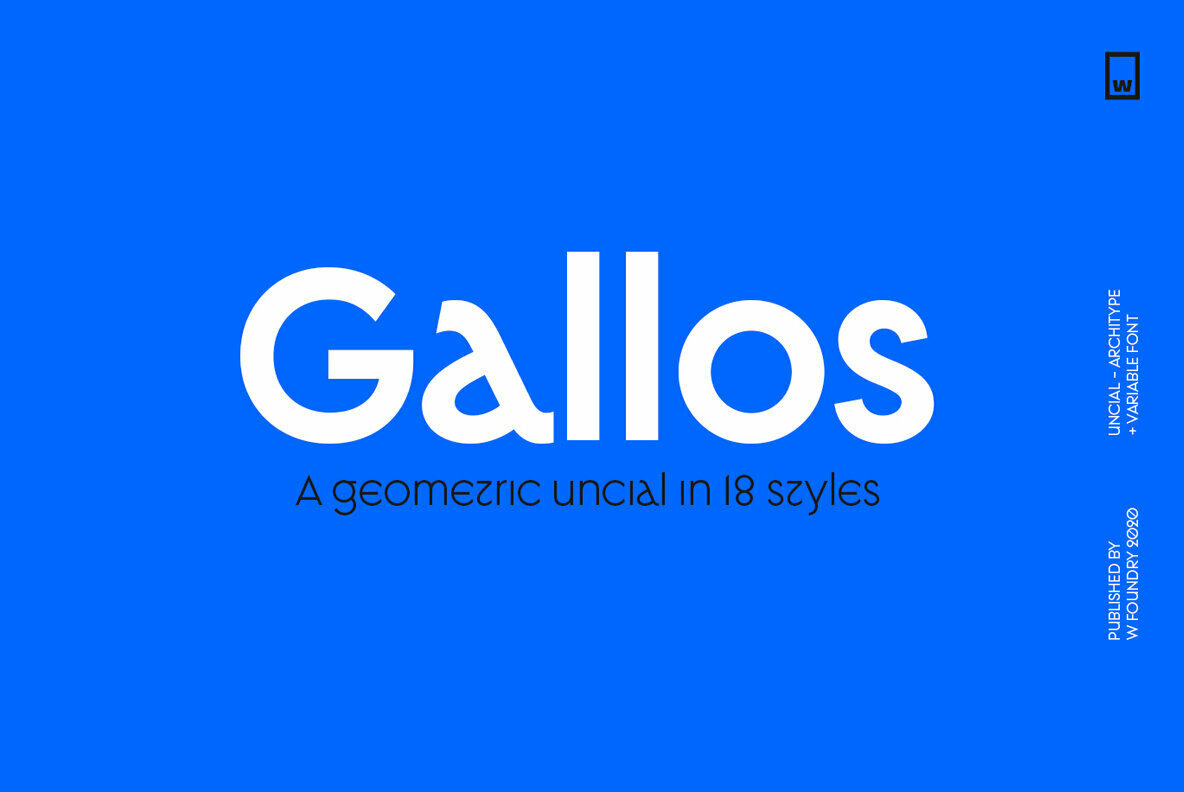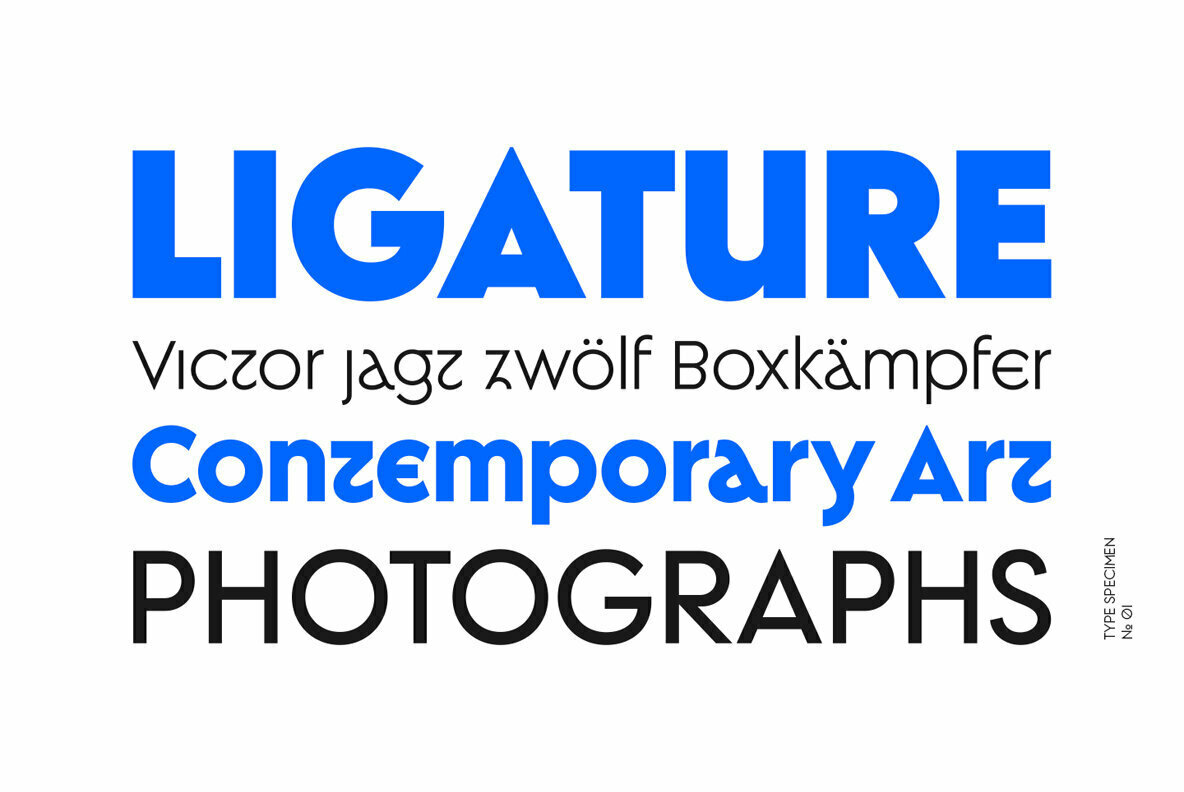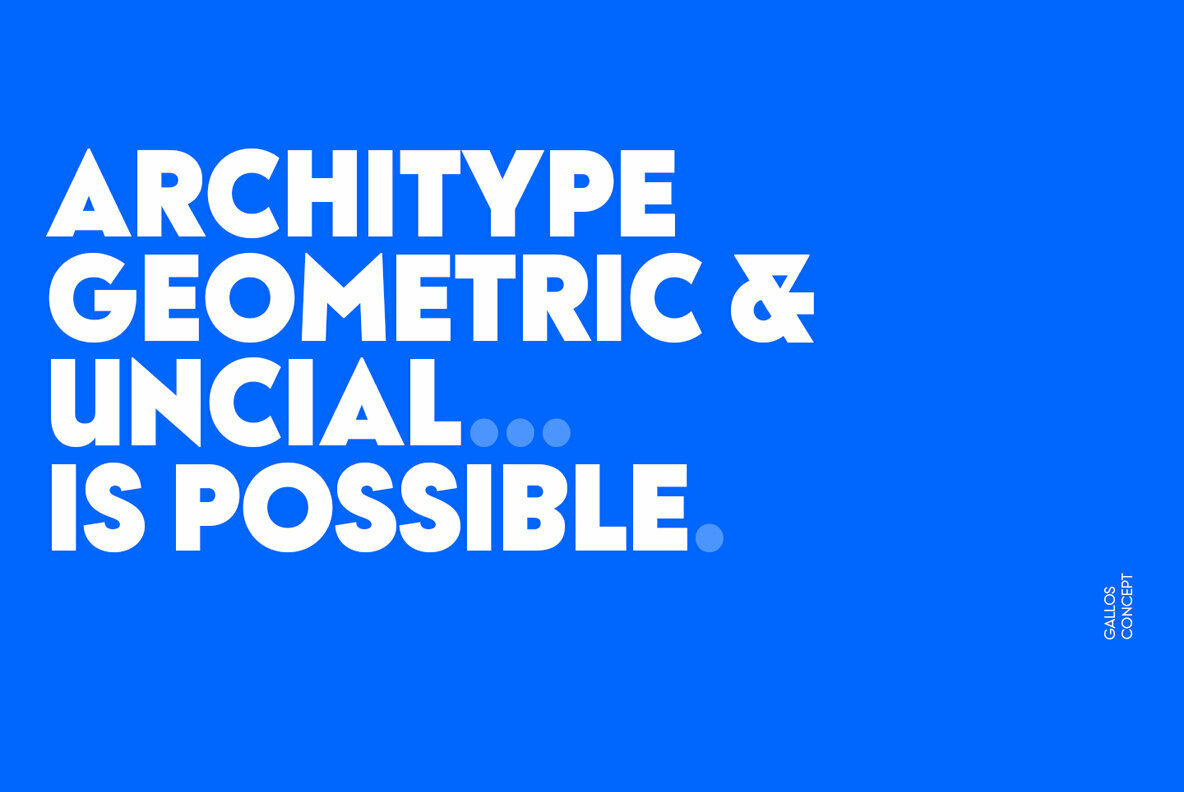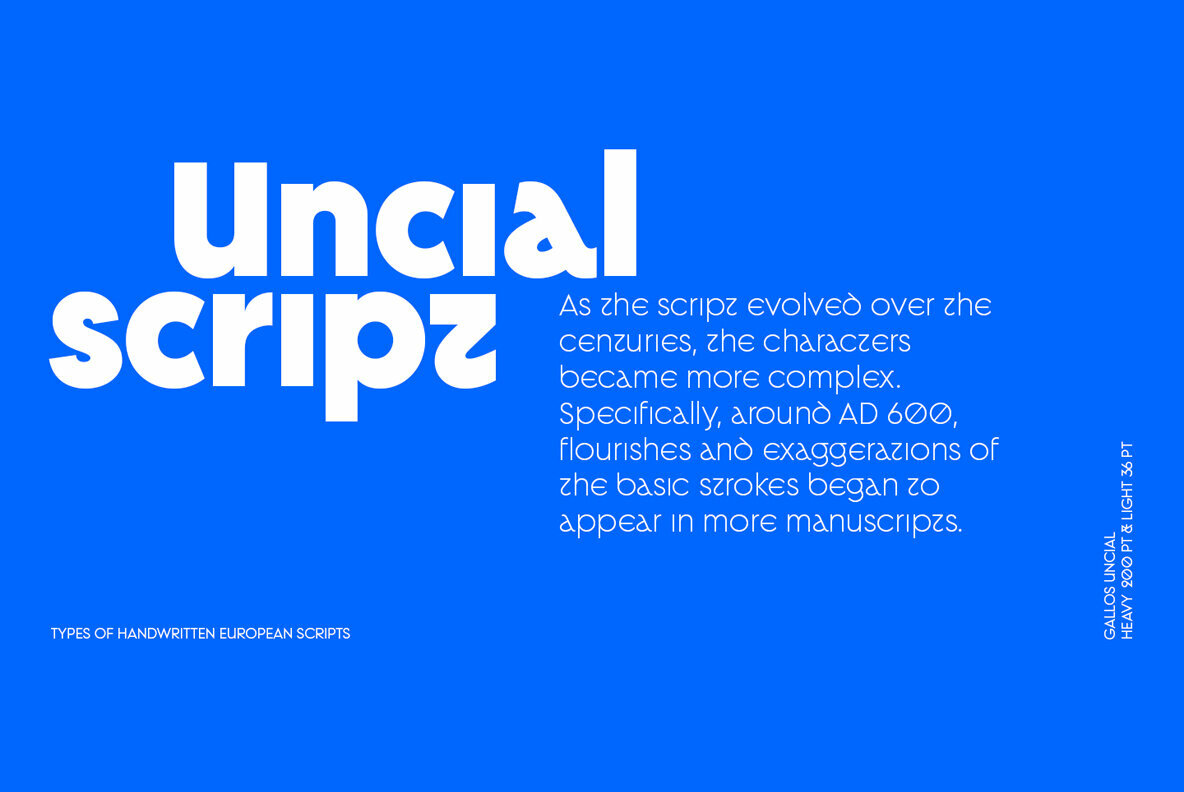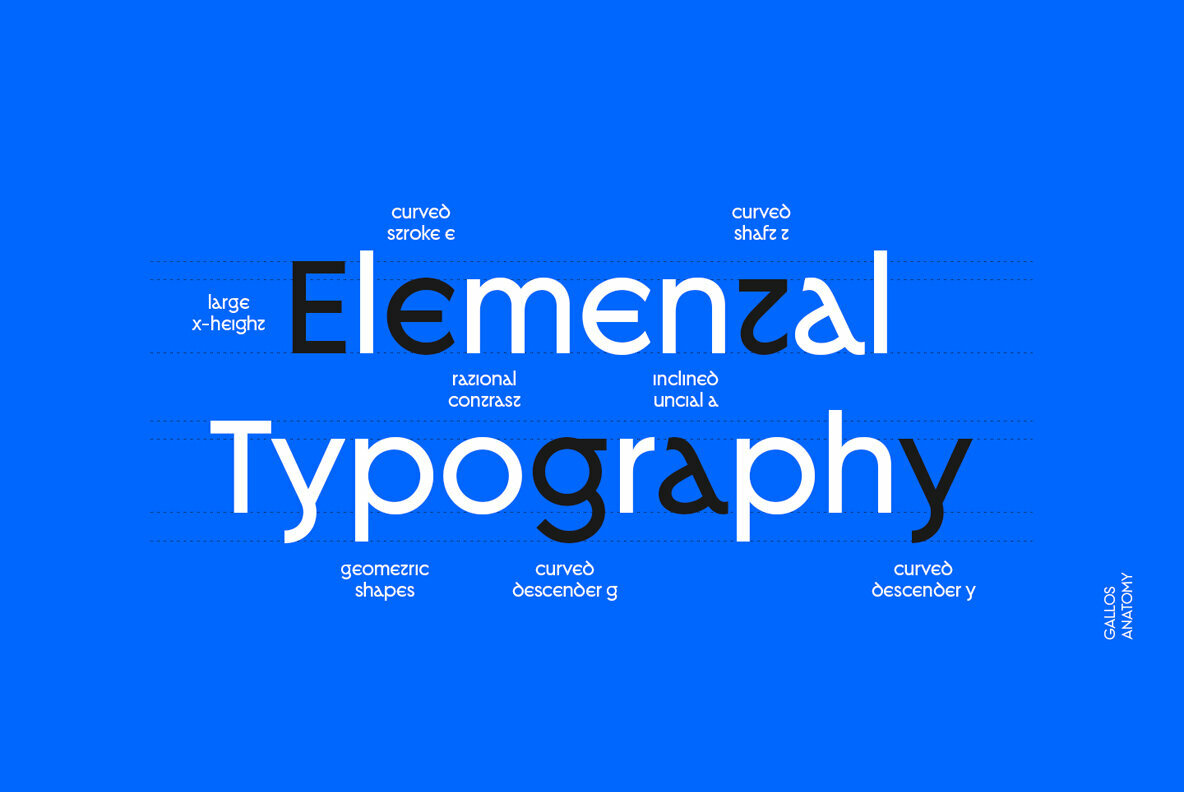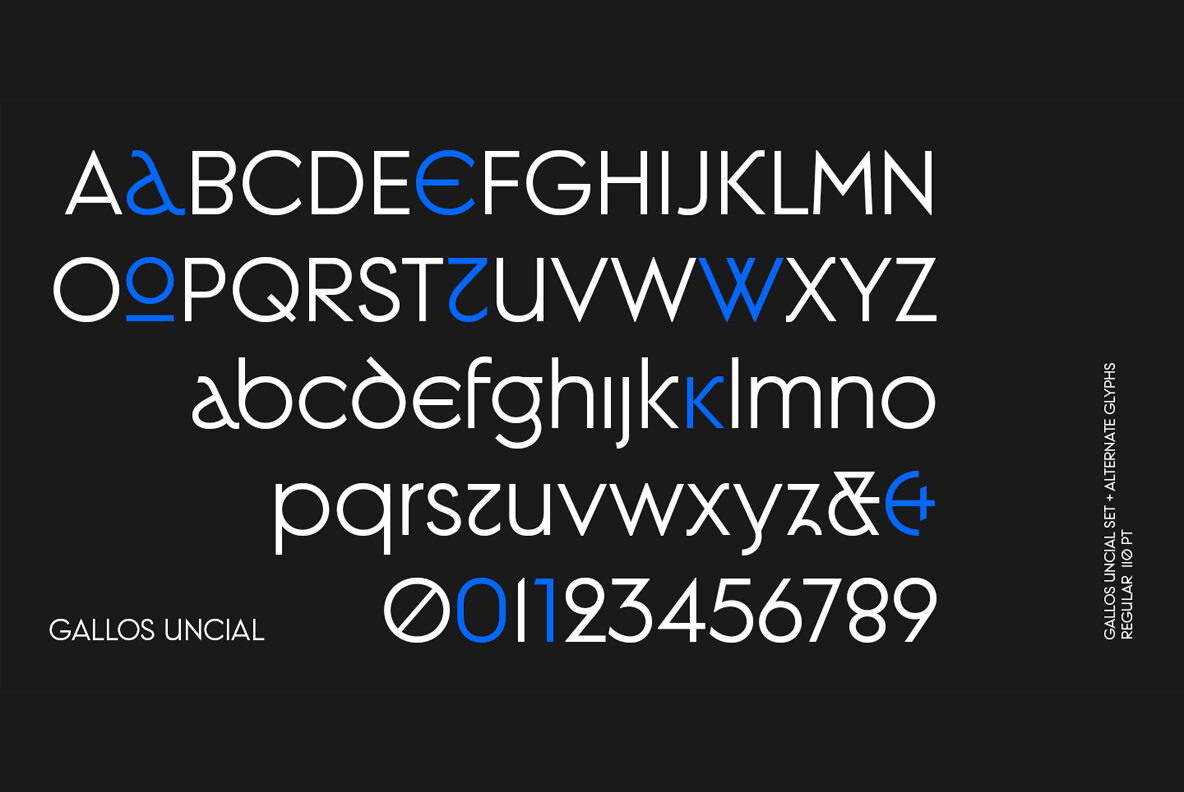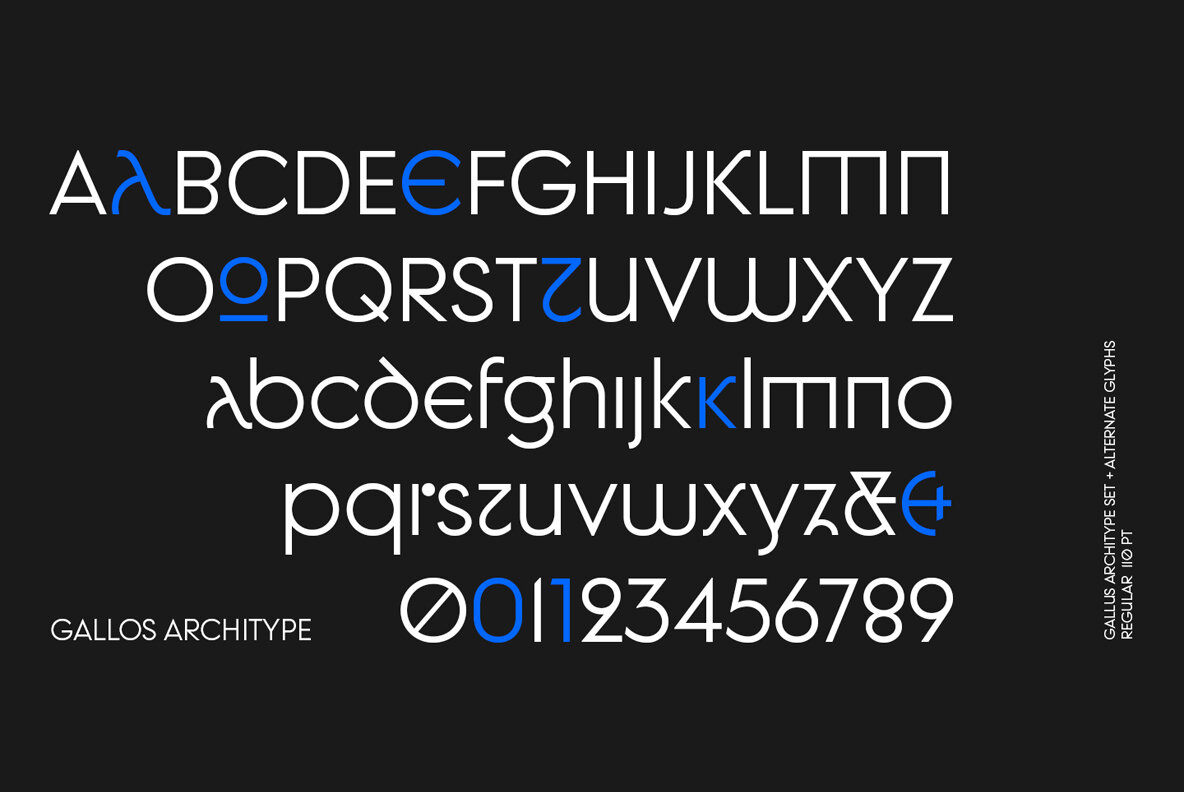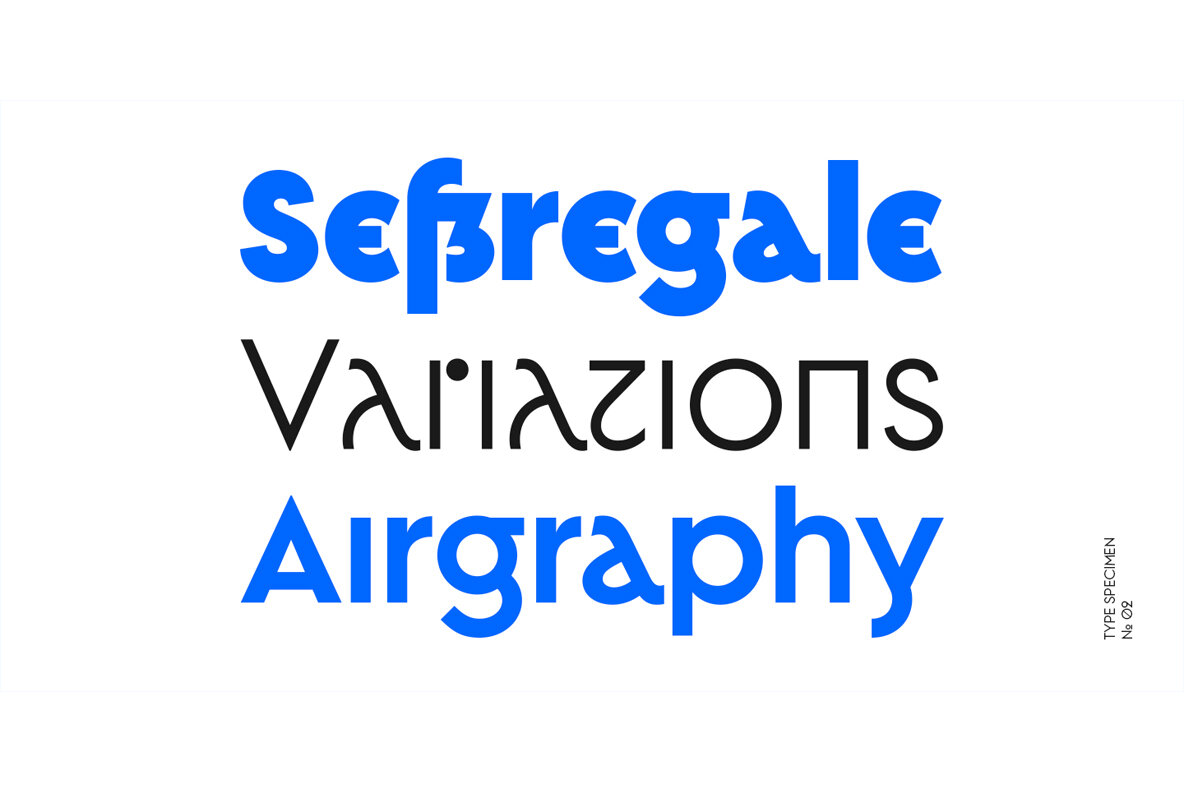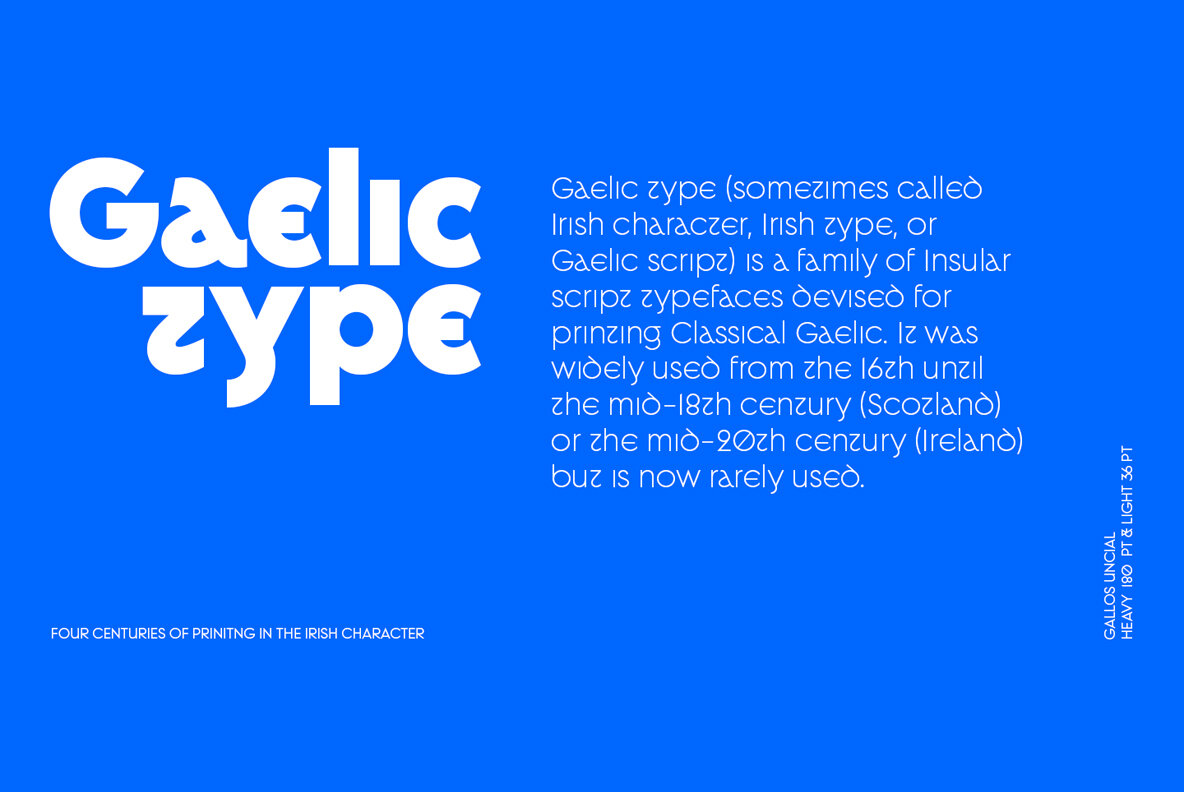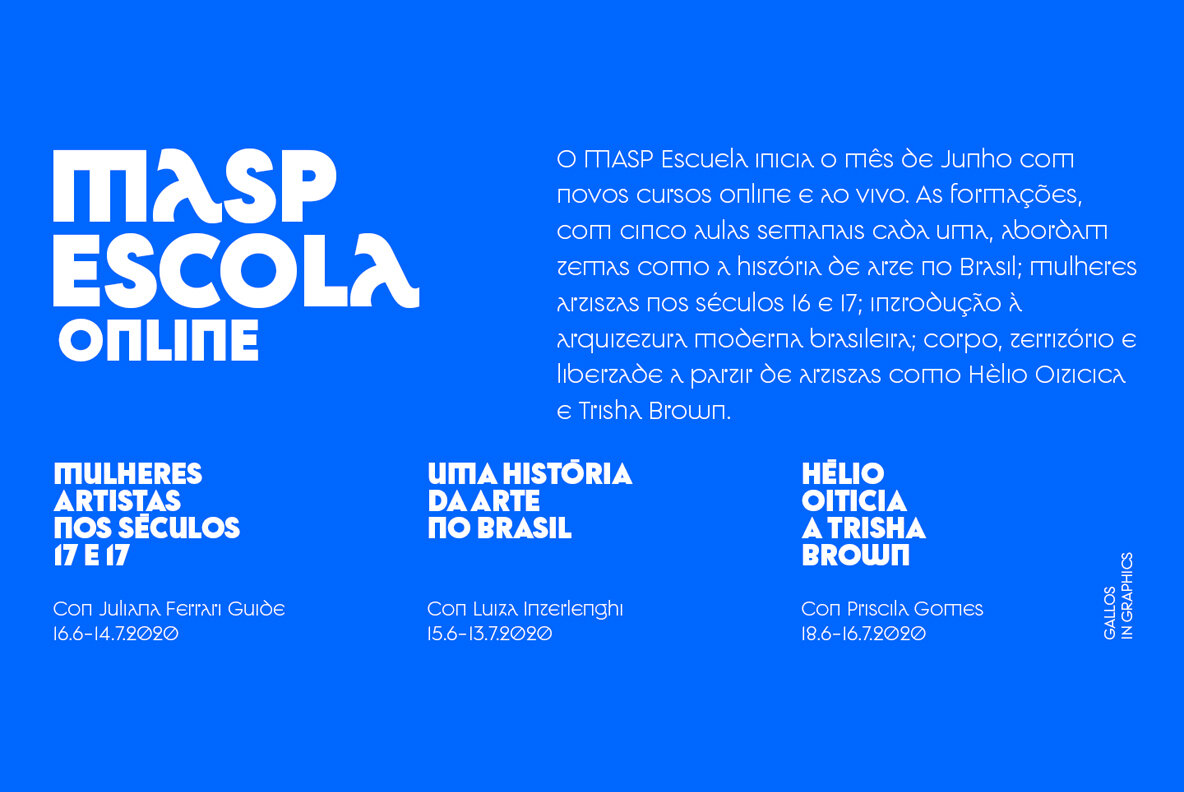
Gallos Font
What comes to your mind if I say Architype, Geometric, Gaelic, and Uncial? An impossible combination of features? An unrealistic setup of tastes as weird as your music list? Or some part of a joke told by your favourite comedian? Just chill and stick to the idea that is possible.
Gallos combines the conceptual historical elegance of the Uncials with the practical rationalism of the Geometric style. Moreover, this typeface is composed by two sub families: Gallos Uncial and Gallos Architype. The letters “M”, “N”, “W”, “a”, “m”, “n”, “r”, and “w” differ between these two models. The first one is related to both: The Uncial script aspect displaying the leaned “a” with a closed bowl, and the classical geometric style depicting more conventional uppercase and lowercase letters “m” and “n”. The Architype one is inspired by Paul Renner’s Architype model, thus the leaned “a” has an open counter, the “r” is composed by a stem and a dot, and the rest of the mentioned letters were built using square rational features.
Both models are connected by classical Uncial features such as the curved stroke “e” and curved shaft “t”, and with Gaelic vibes which can be seen in uppercase and lowercase letters “K” and “X”. Also, the curved descender “g” and “y”, alongside the curved stem “z” connect really well with the rest of the system and provide more uniqueness to the Gallos type family.